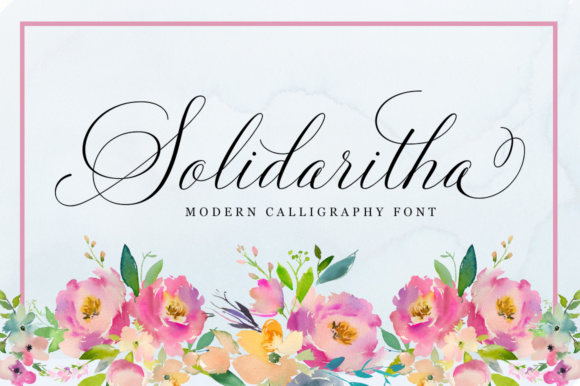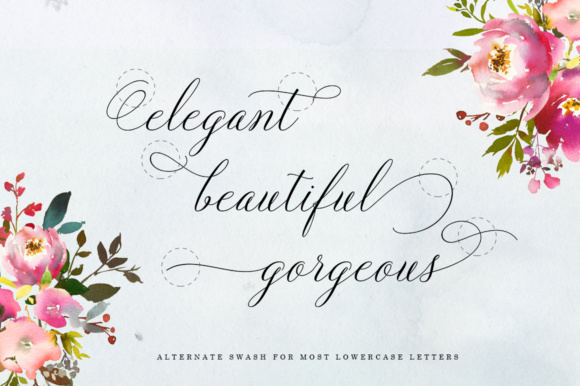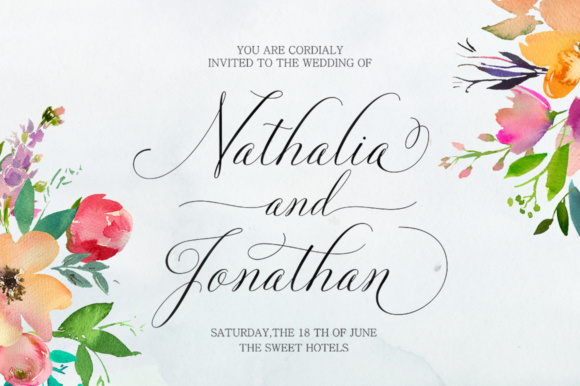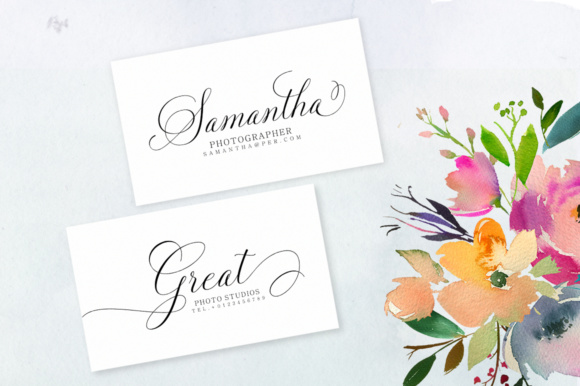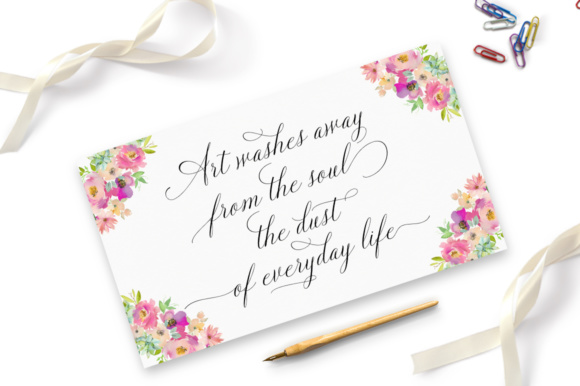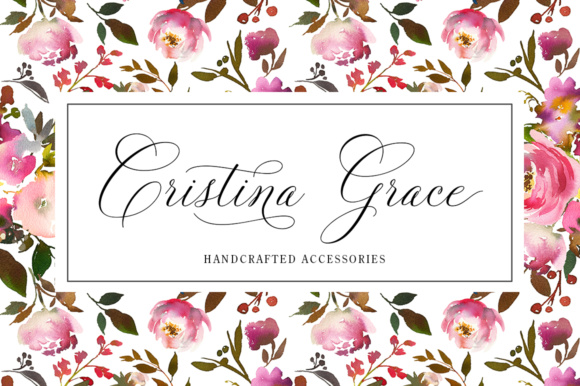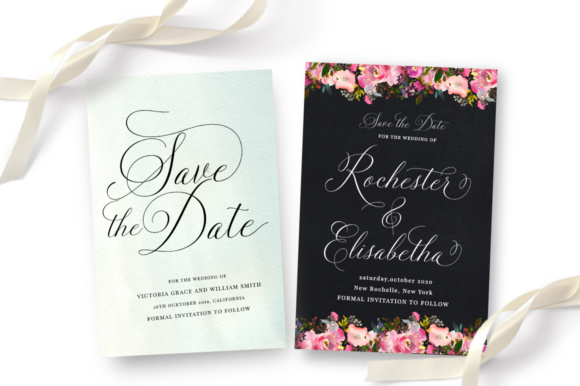
Solidaritha Font
About Solidaritha Font
Solidaritha is a stylish calligraphy font that features a varying, dancing baseline with an elegant appeal. This font can be used for various purposes and looks exemplary in invitationals.